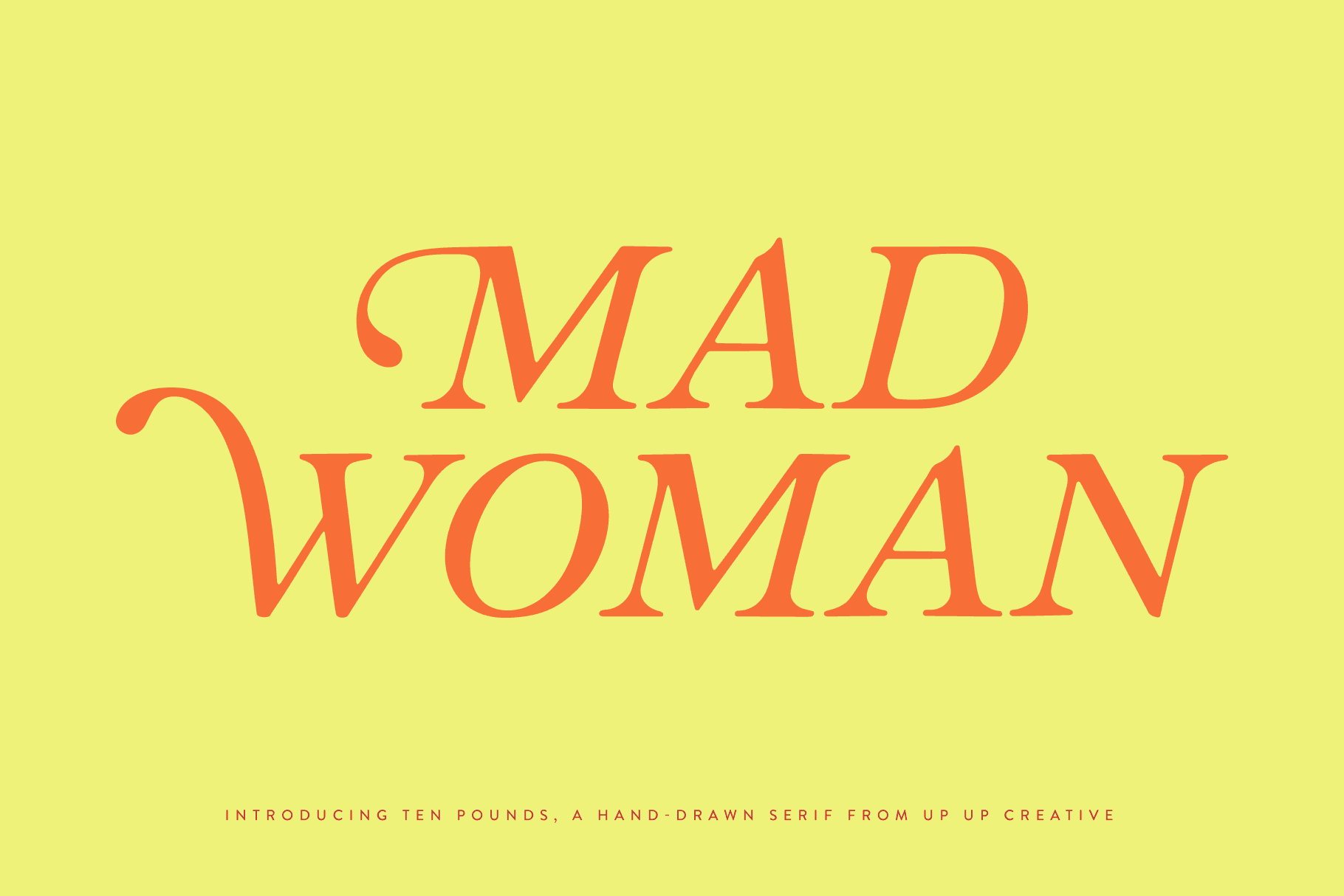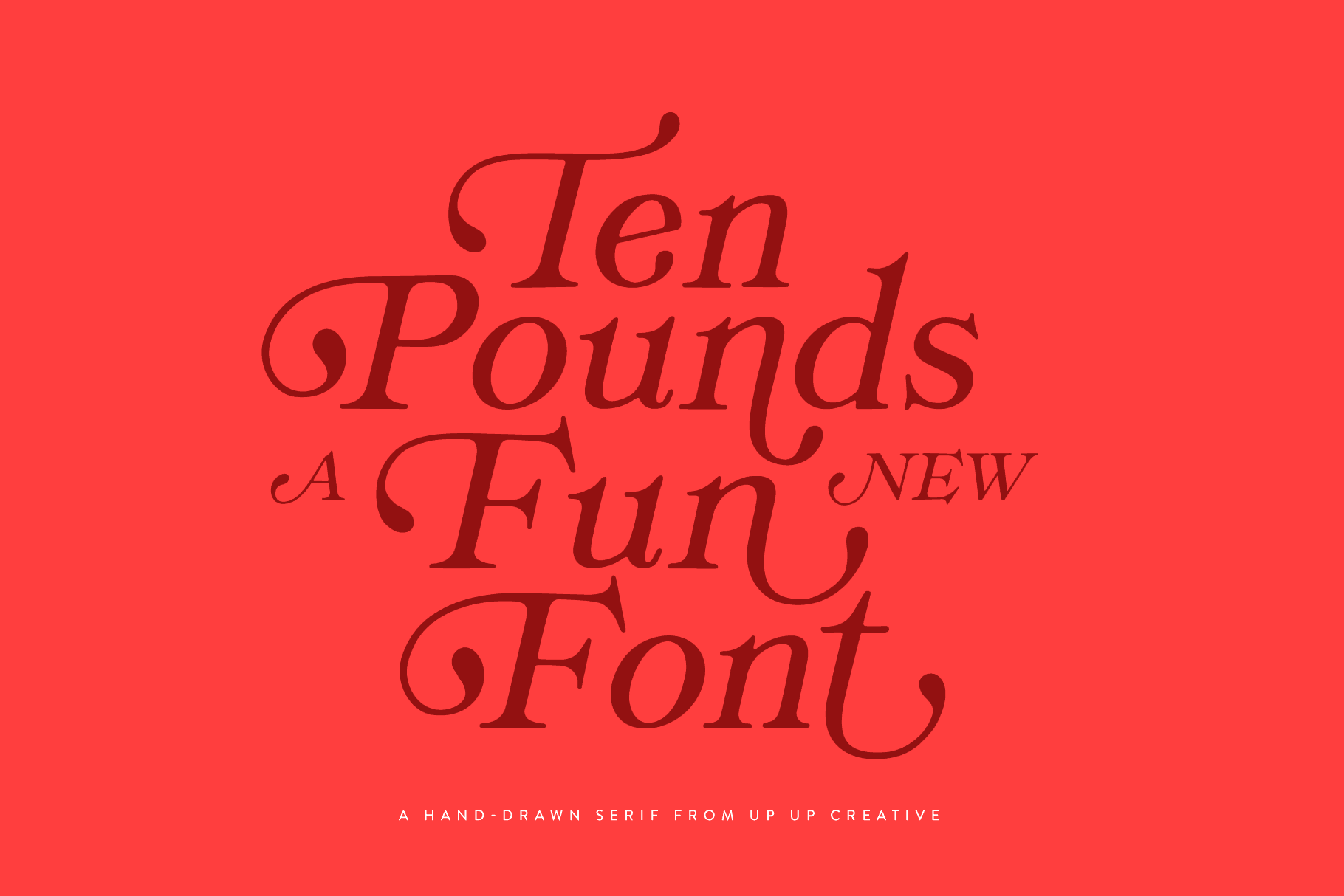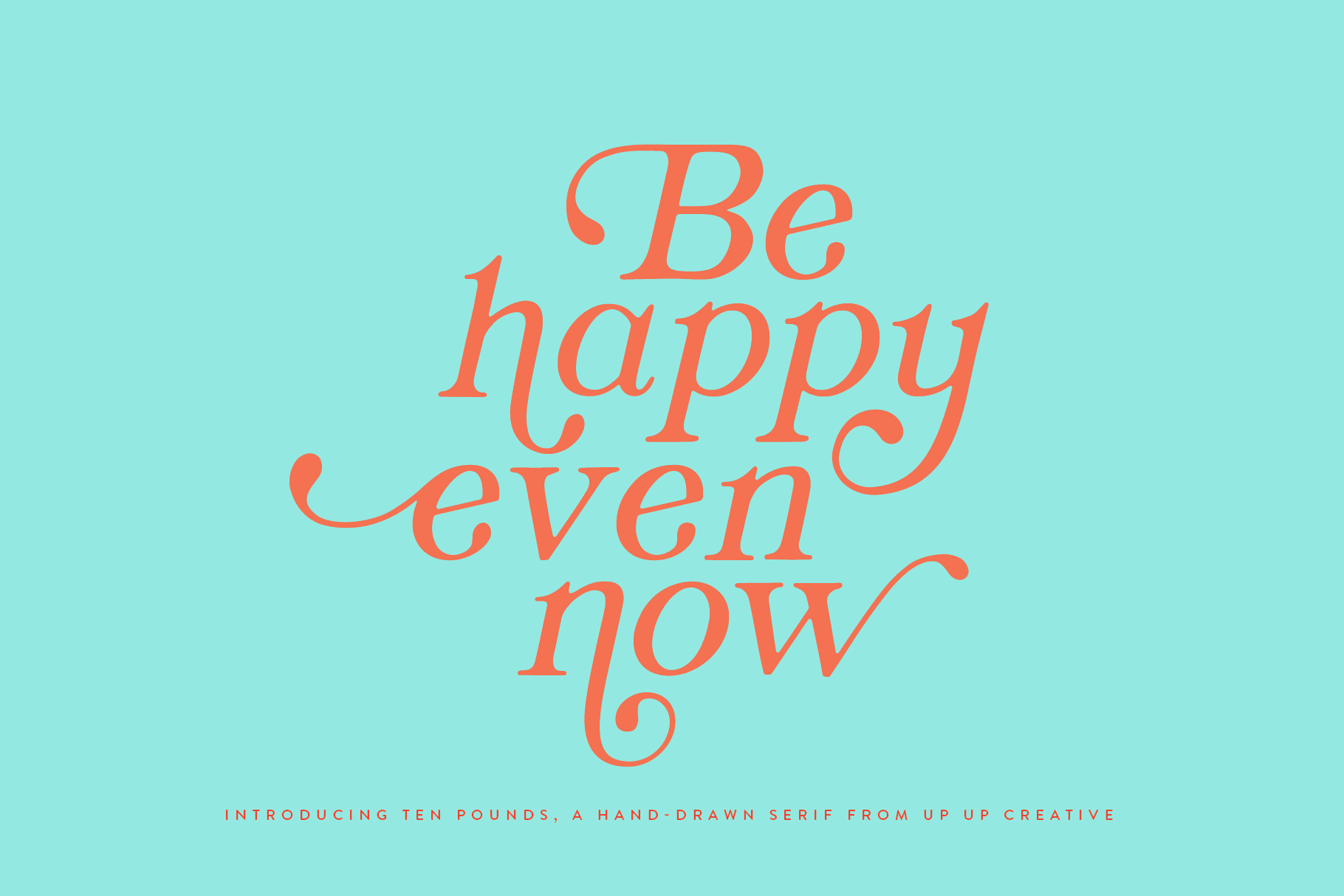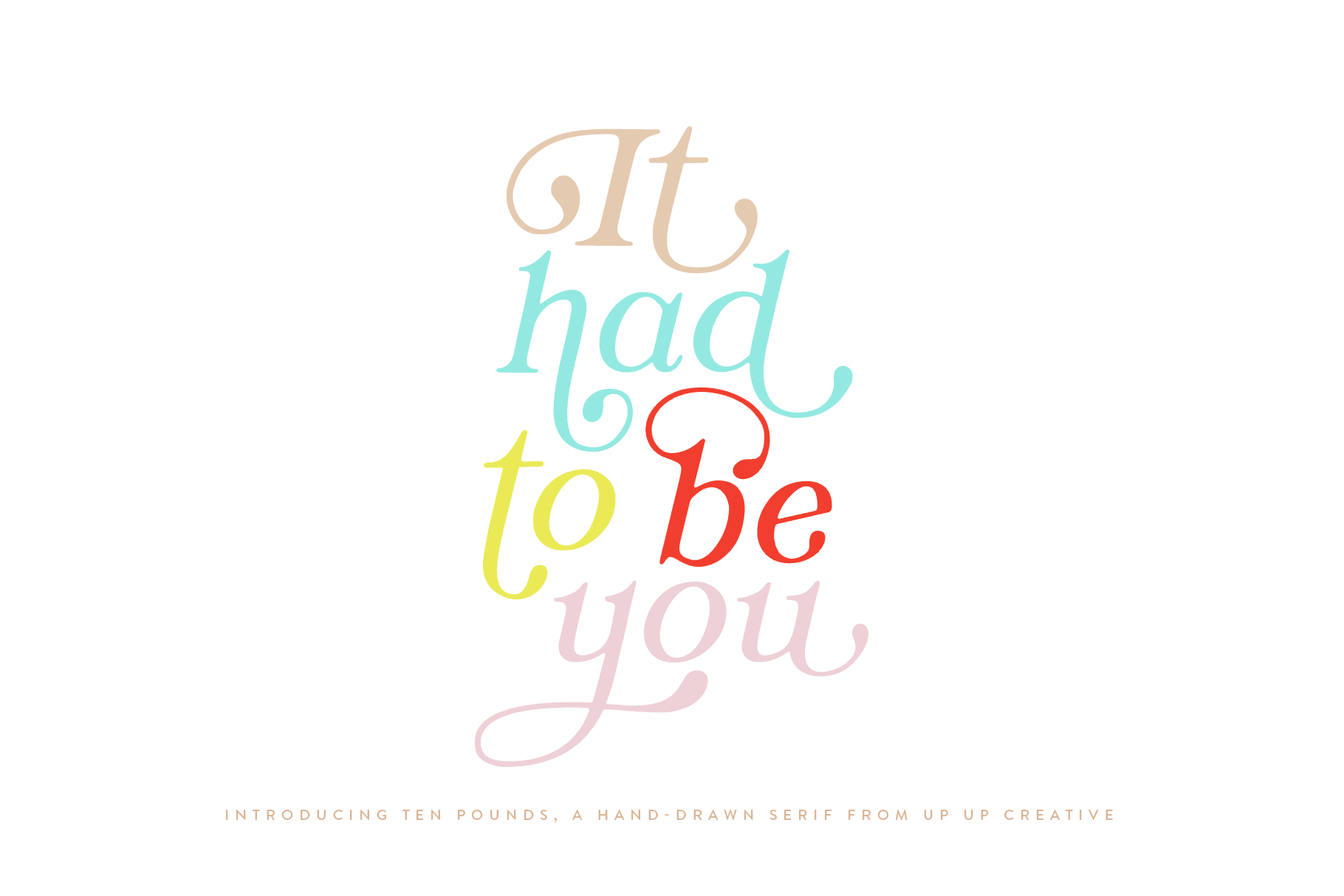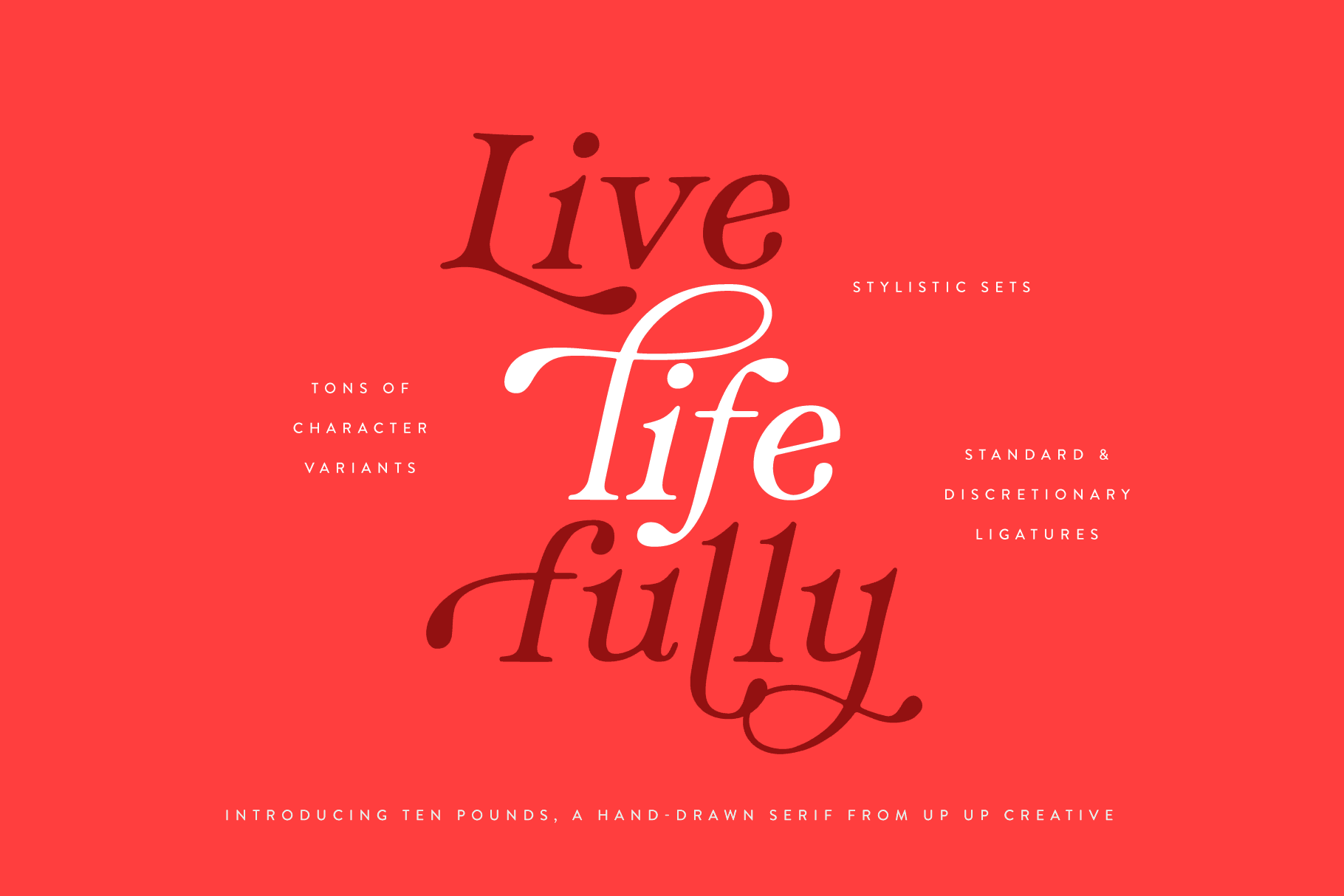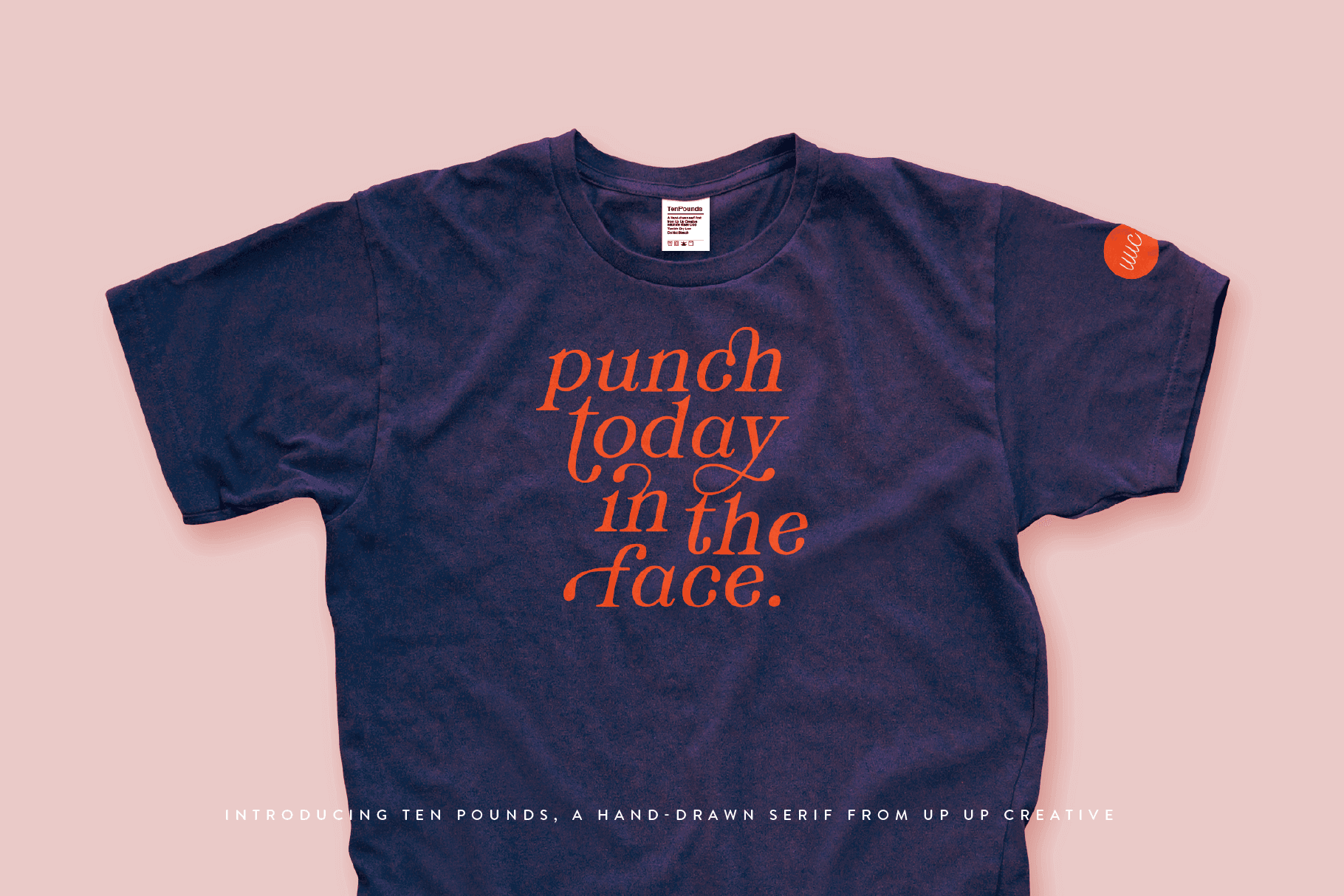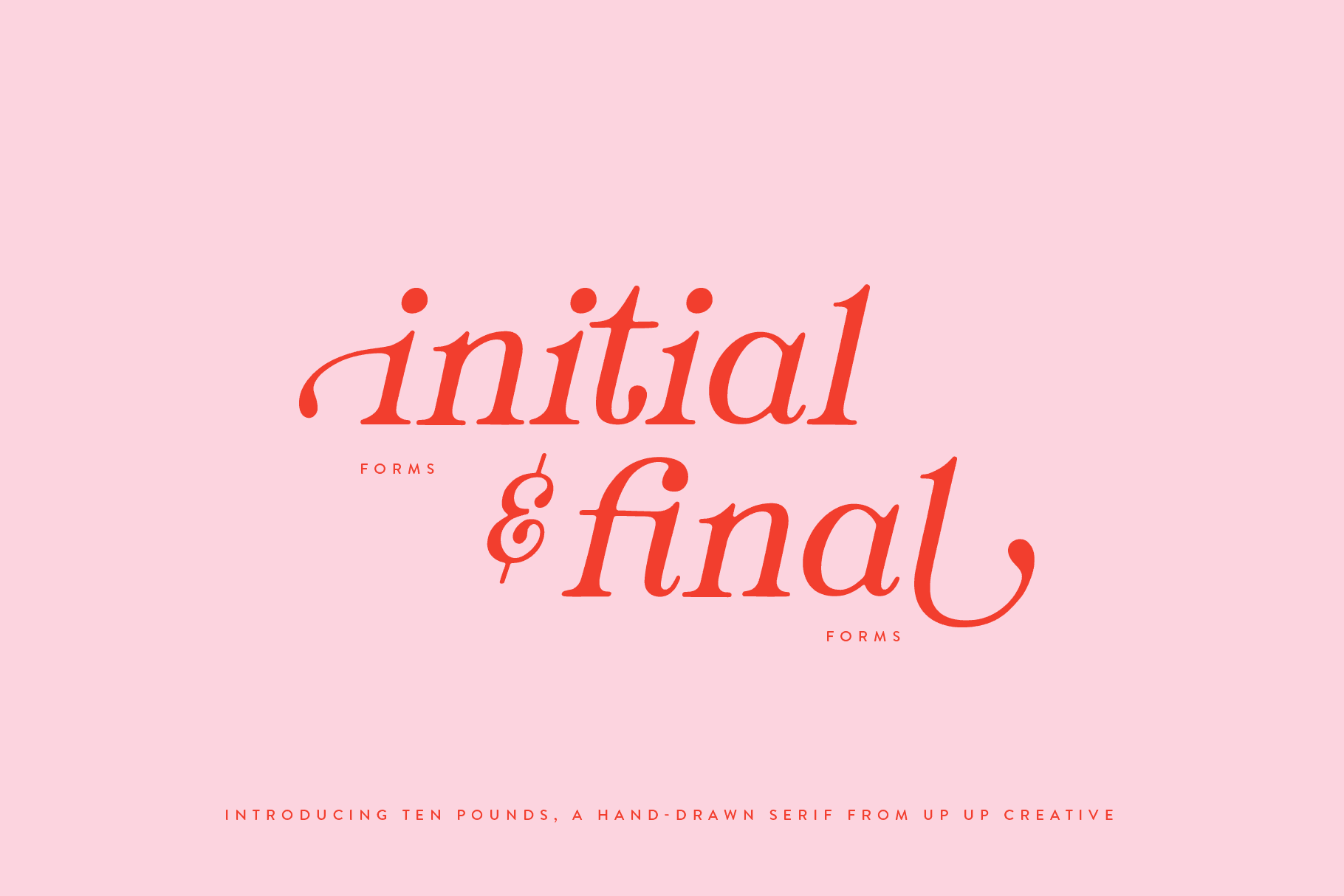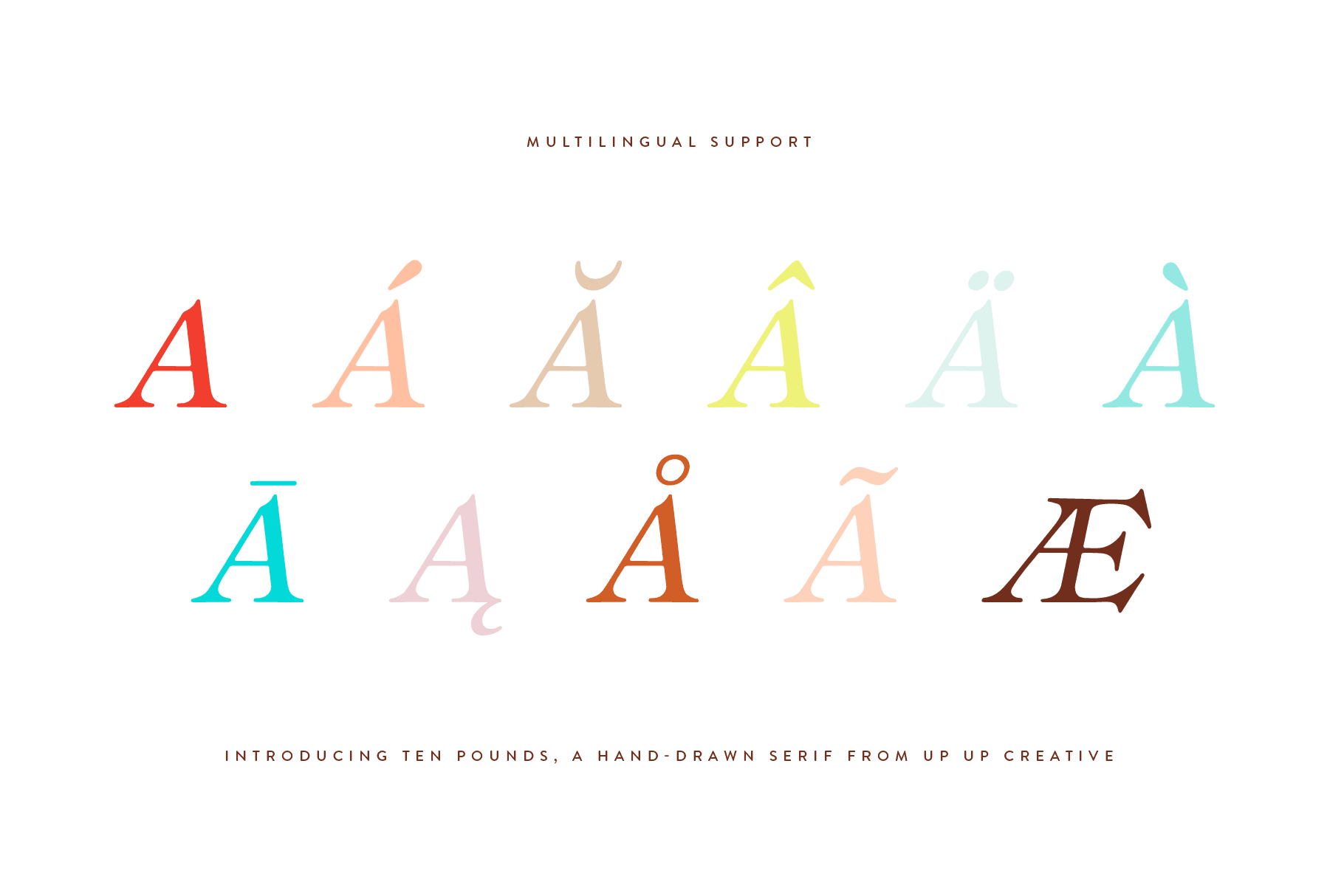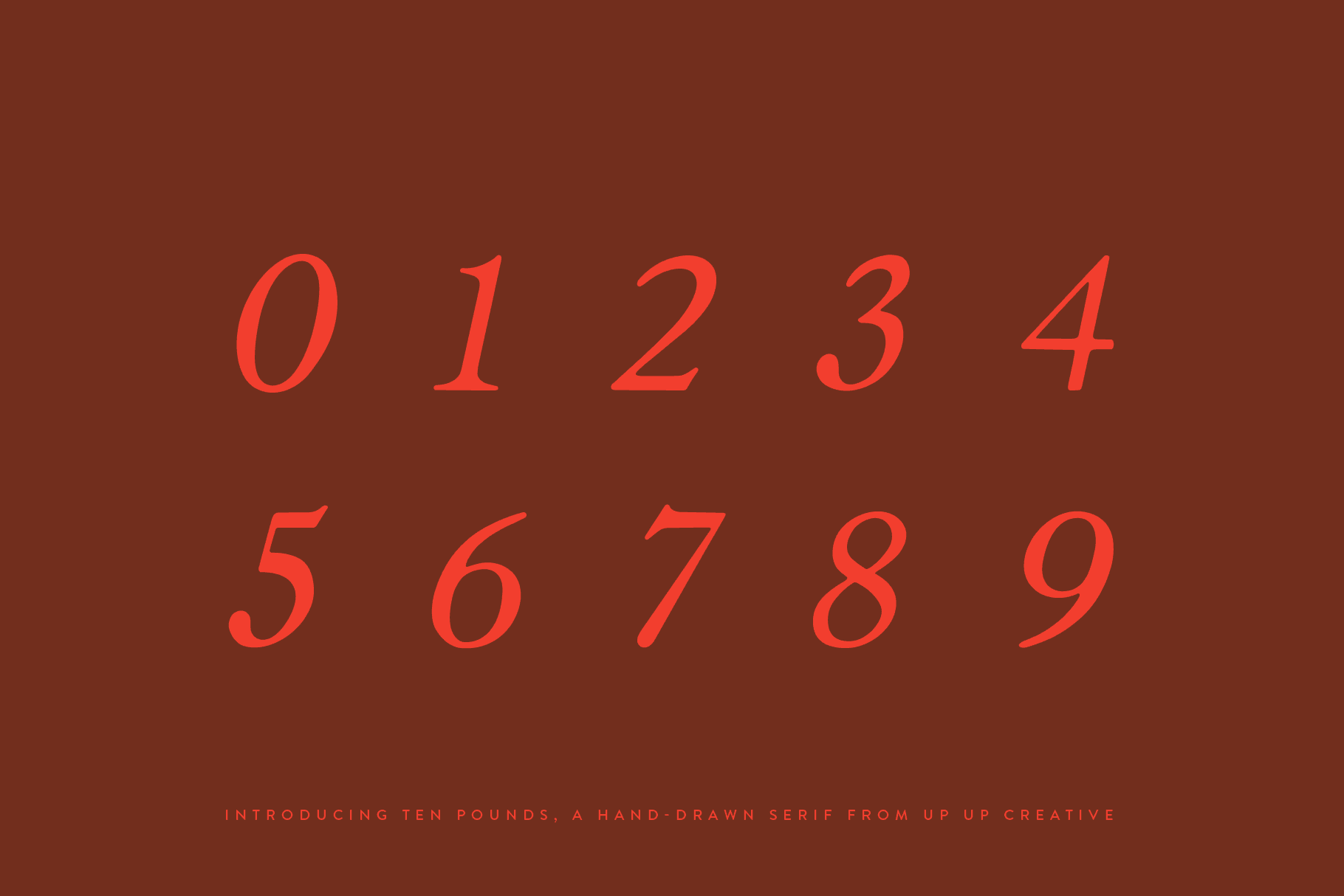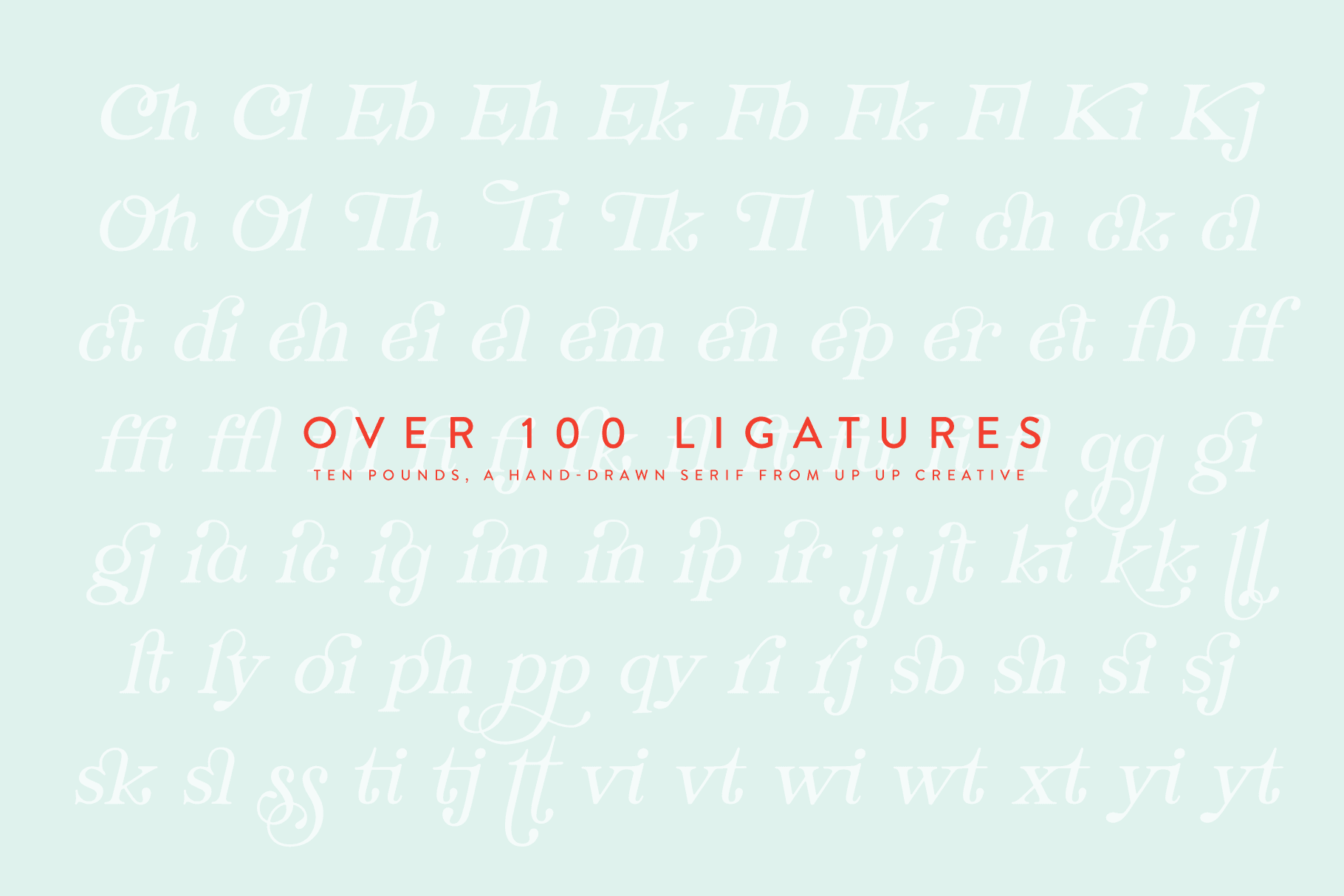
Ten Pounds, a Hand-Drawn Serif Font
Ten Pounds is a fun, hand-drawn serif font with tons of character (and tons of characters!). It's perfect for branding, poster design, t-shirts, invitations, design for children, and editorial design.
- character variants
- standard and discretionary ligatures
- initial and terminal forms
- localized forms (multi-language and multi-currency support)
- fractions, ordinals, and superscripts
- stylistic sets
Includes 102 ligatures
- Includes 1368 glyphs
- 1 Style, 1 Weight